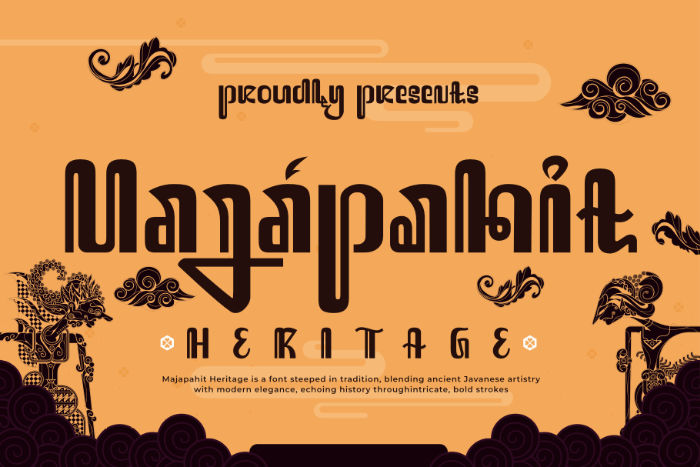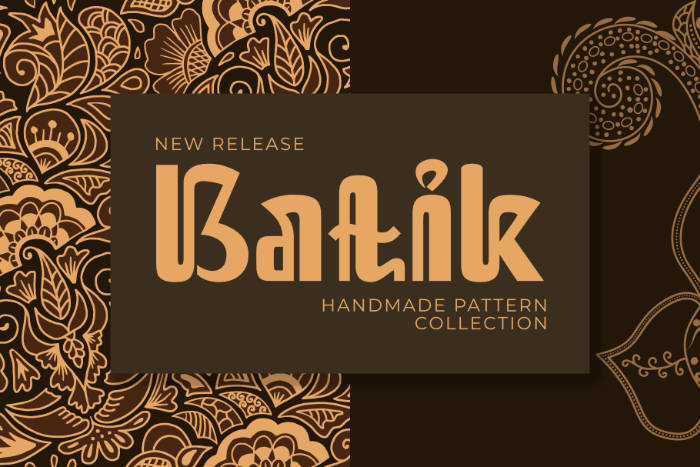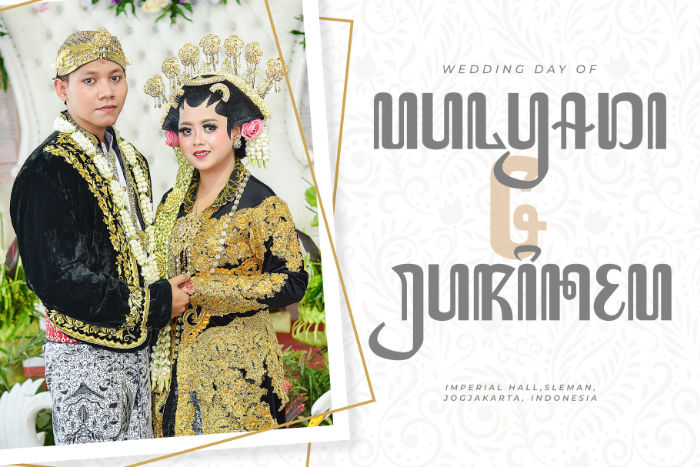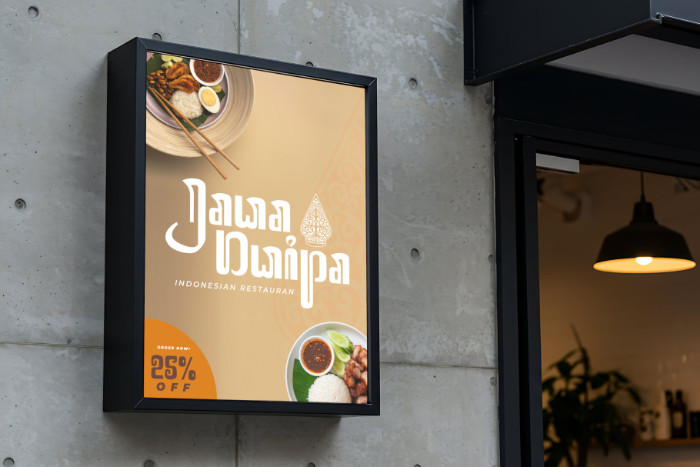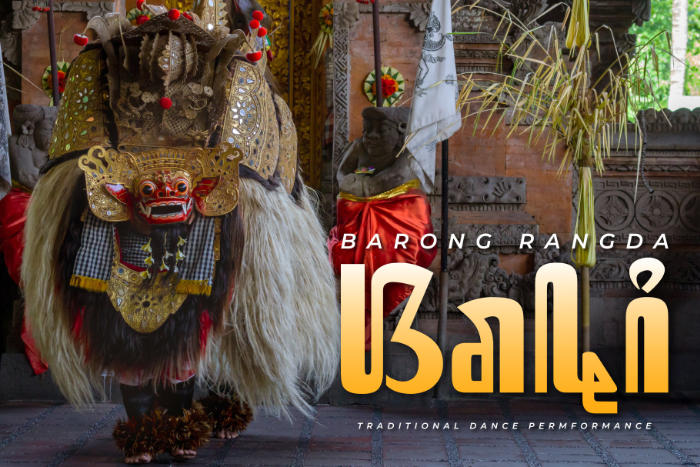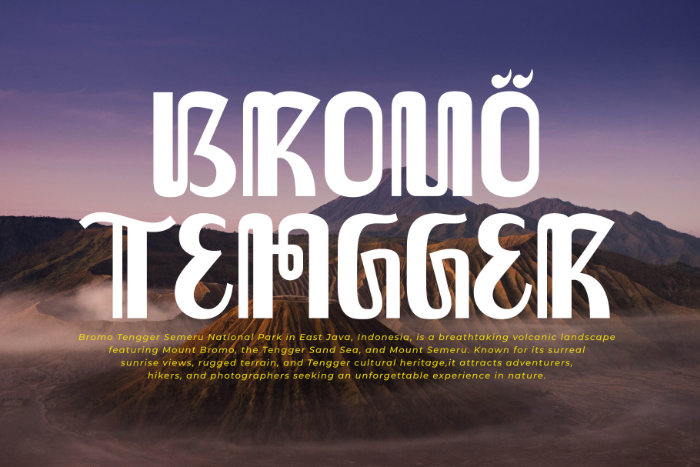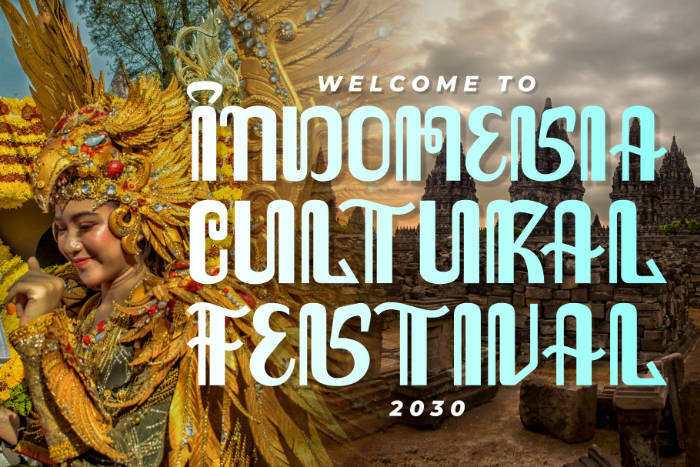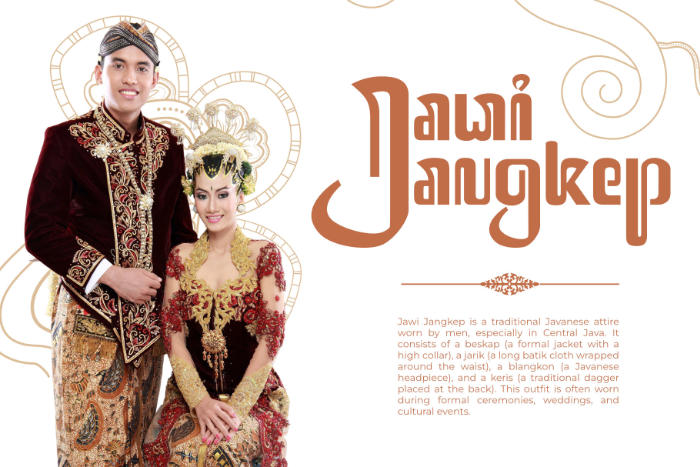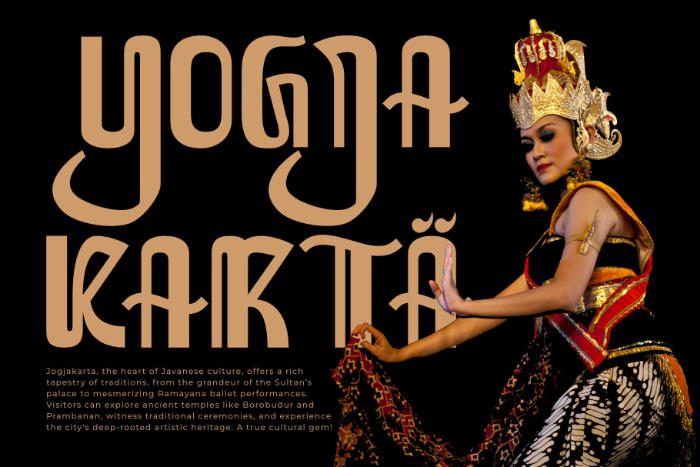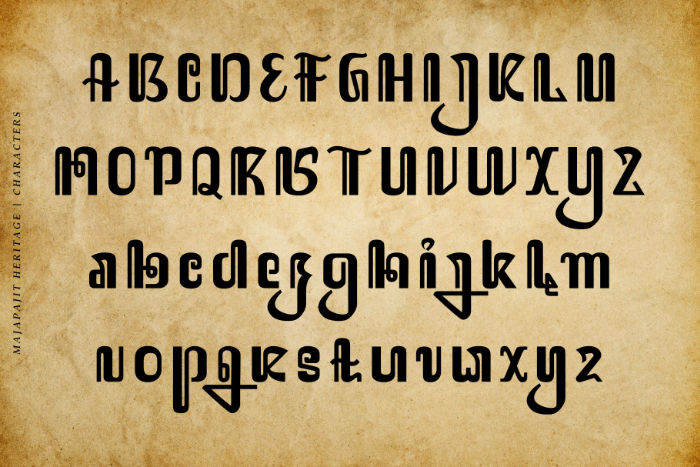
Majapahit Heritage is a font deeply rooted in Javanese tradition, paying tribute to the grandeur of the Majapahit Empire. With its faux Javanese aesthetic, it captures the essence of ancient inscriptions, temple engravings, and royal manuscripts. The intricate curves reflect the elegance of traditional calligraphy, while bold strokes embody the strength and resilience of Majapahit craftsmanship.
Each letter is meticulously designed to echo the artistry of Java’s golden age, blending historical depth with modern functionality. The font evokes nostalgia, transporting users to a time when culture flourished through architecture, literature, and symbolic art. It seamlessly bridges the past and present, making it a versatile choice for designs that seek authenticity and cultural resonance.
Majapahit Heritage is more than typography—it is a visual story. Its refined details transform words into symbols of legacy, embodying the wisdom of kings, poets, and artisans. Whether used for branding, posters, or artistic expression, it carries a deep sense of heritage while maintaining a contemporary edge.
Through its distinctive shapes, Majapahit Heritage keeps history alive, ensuring that the legacy of Java continues to inspire and endure in the digital age. A font of tradition, artistry, and timeless elegance.